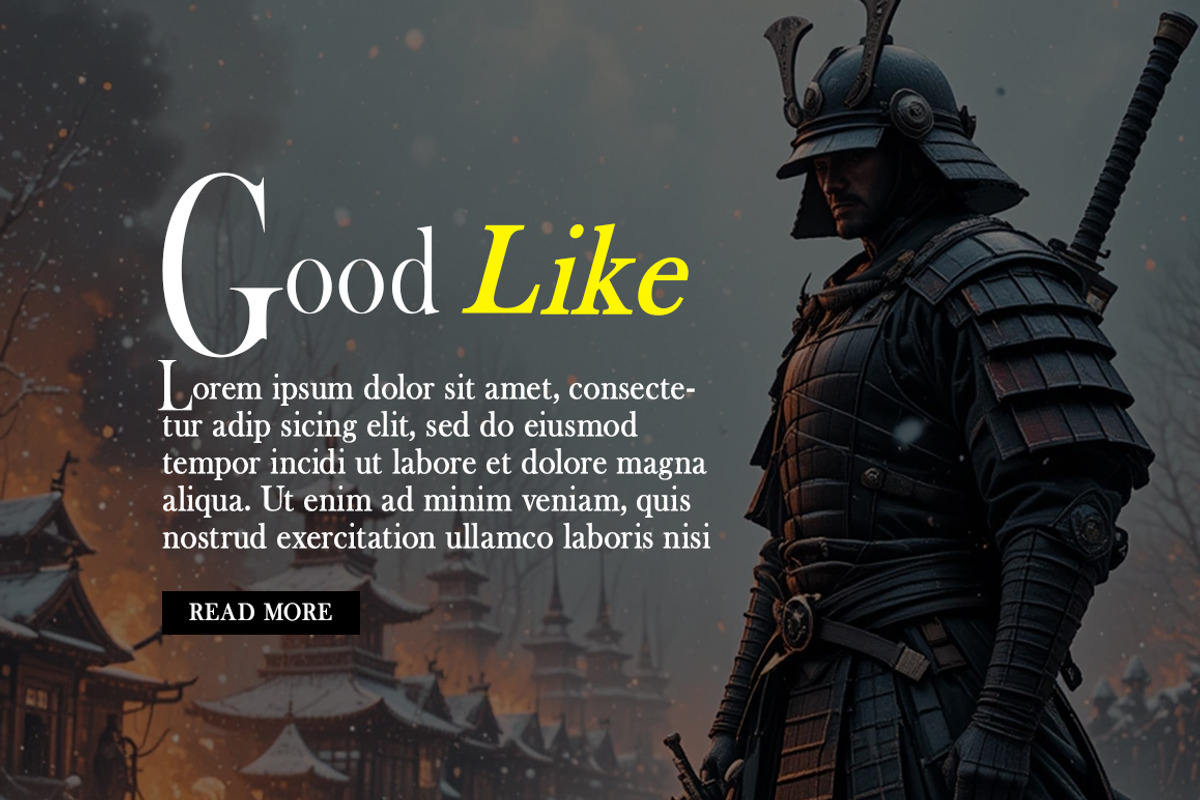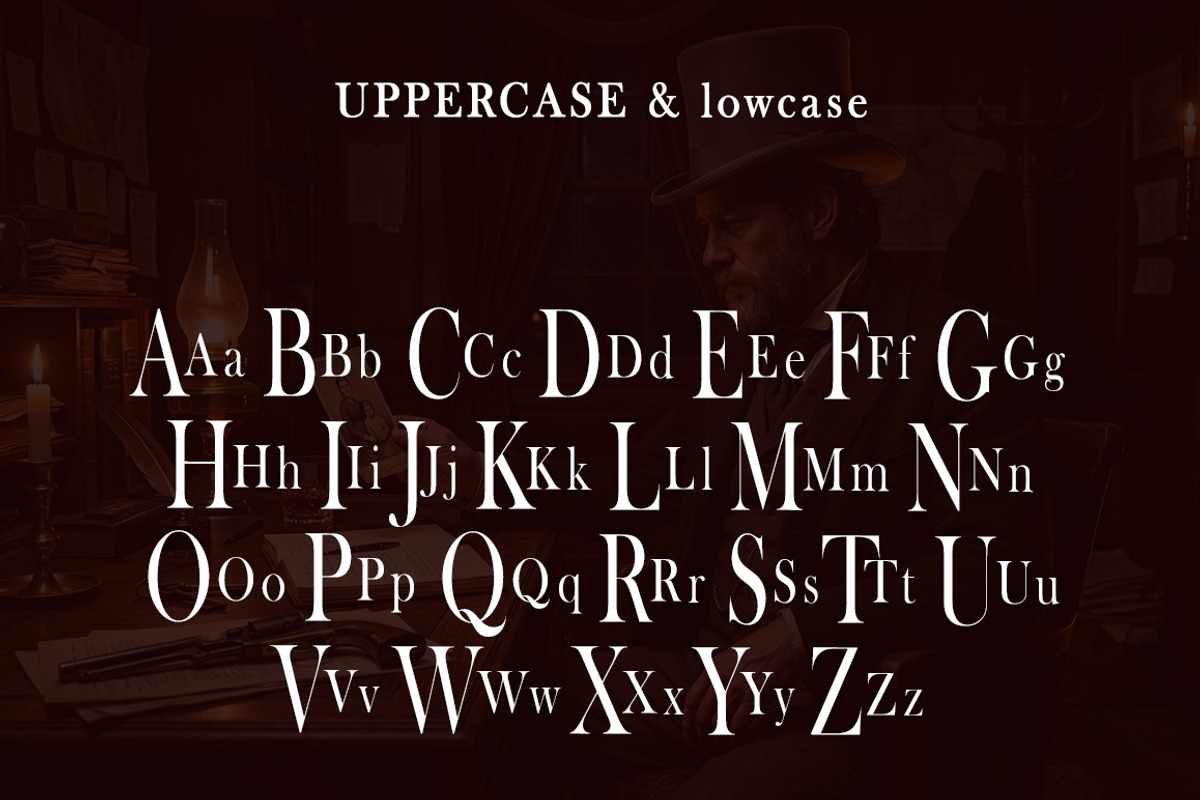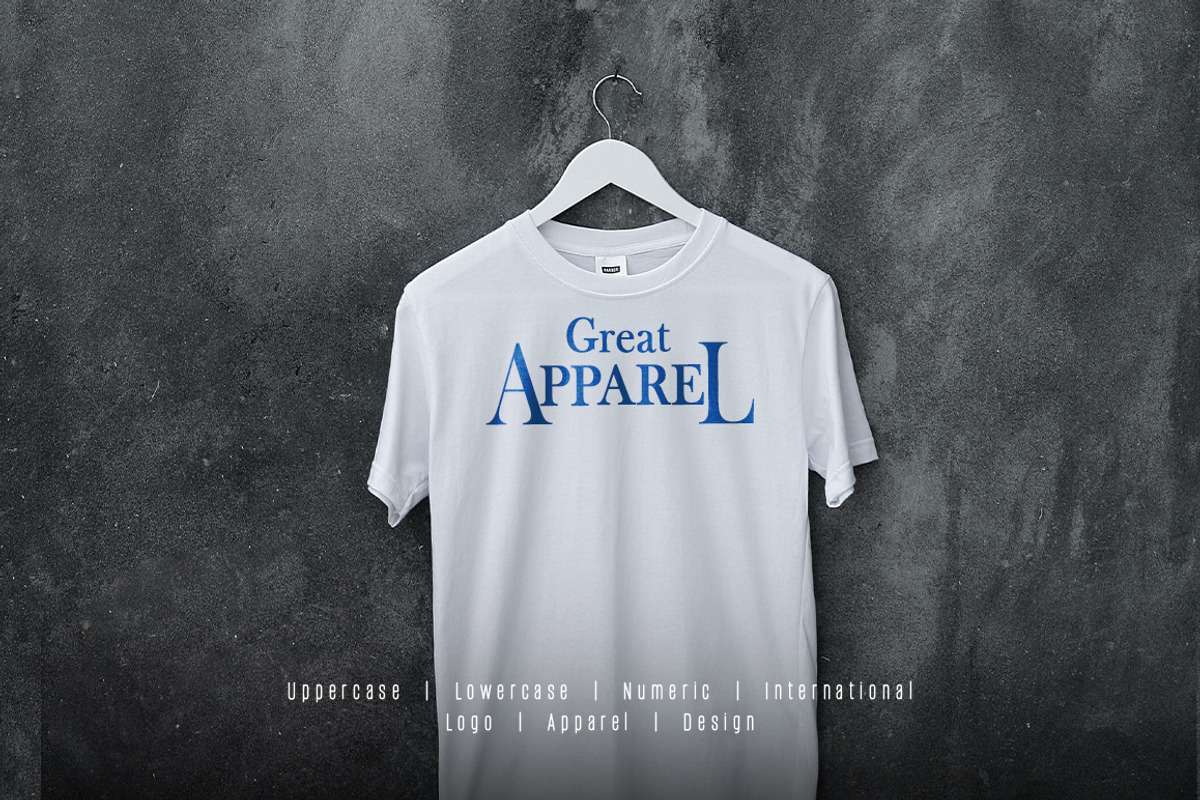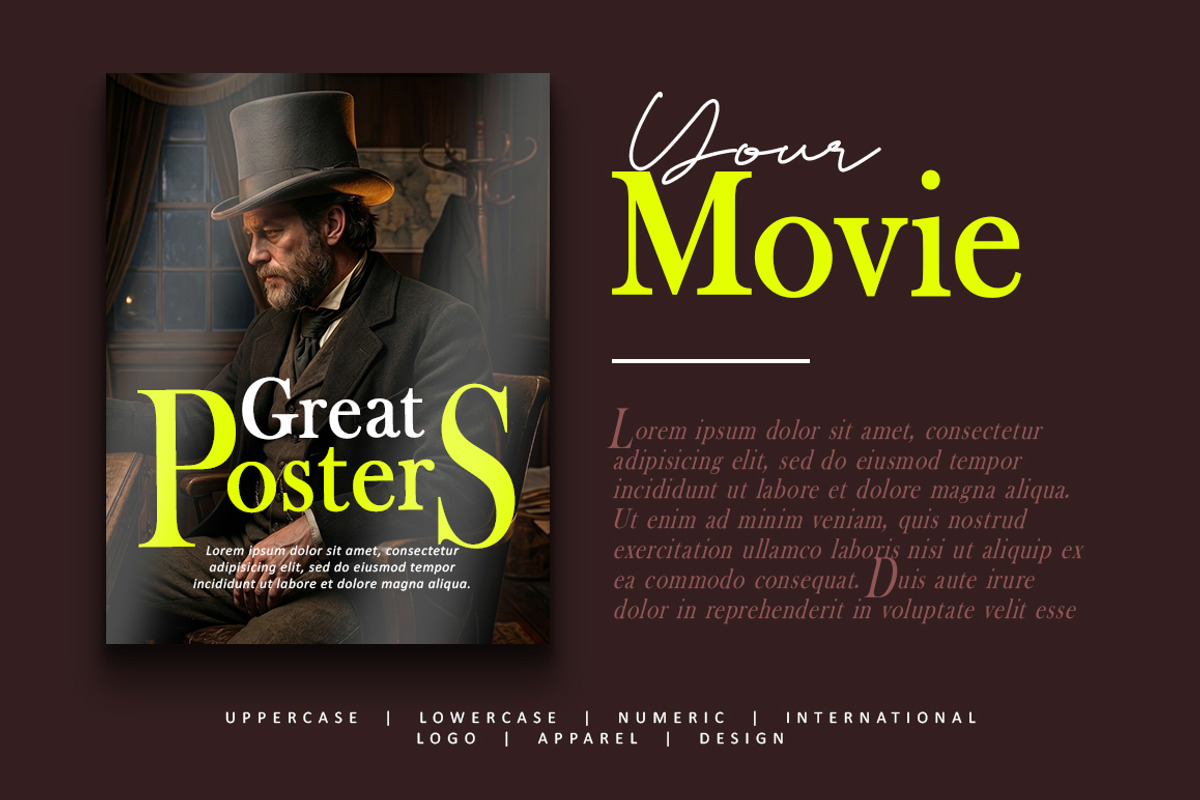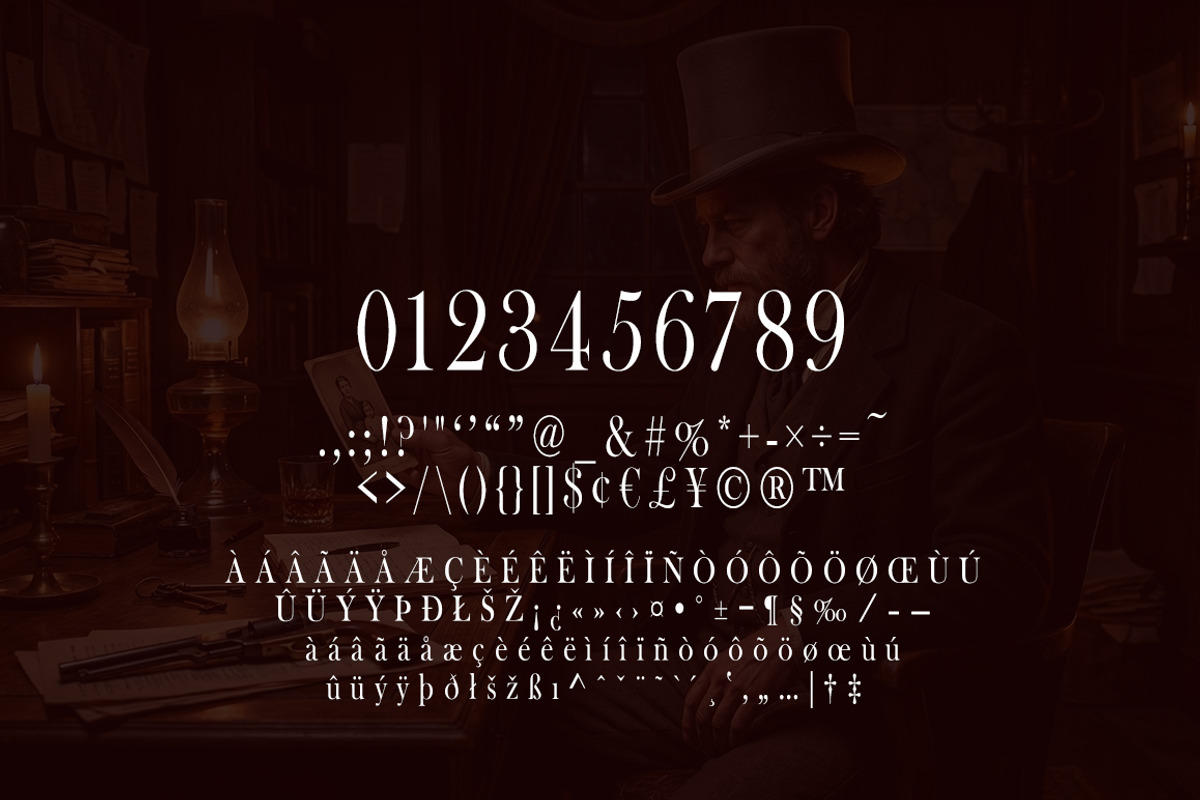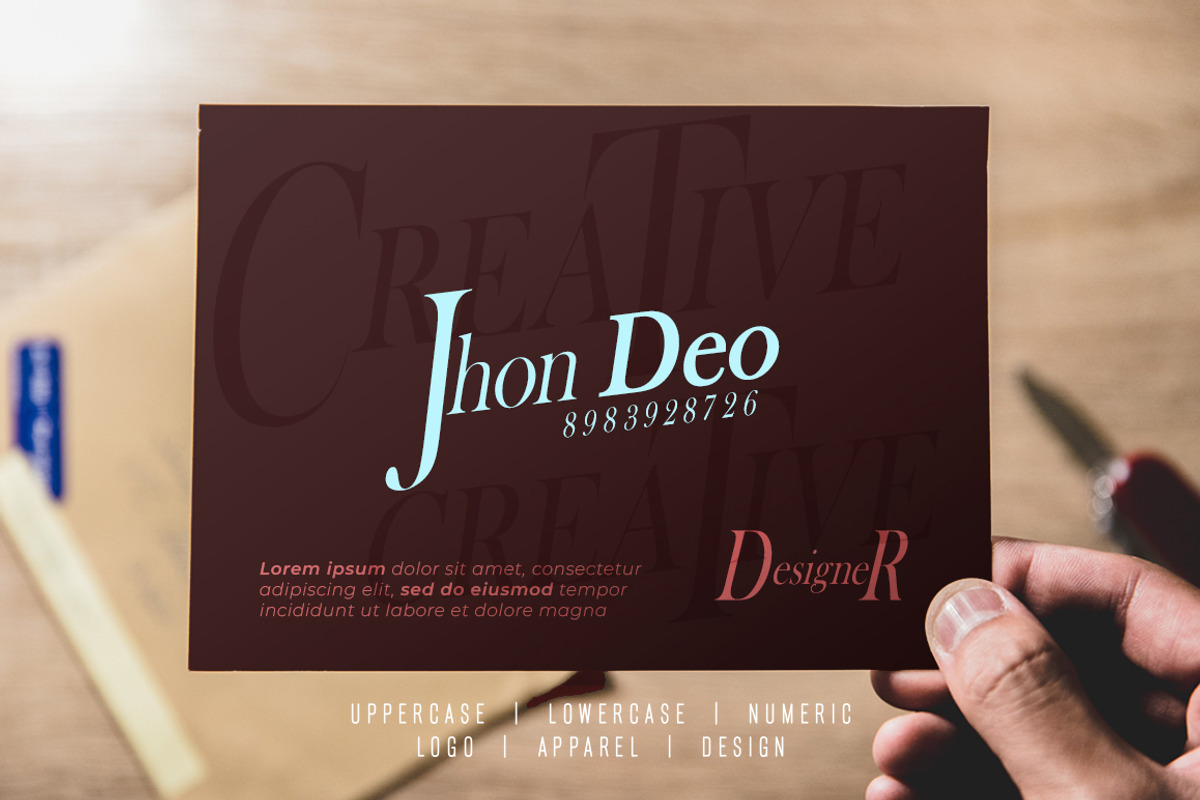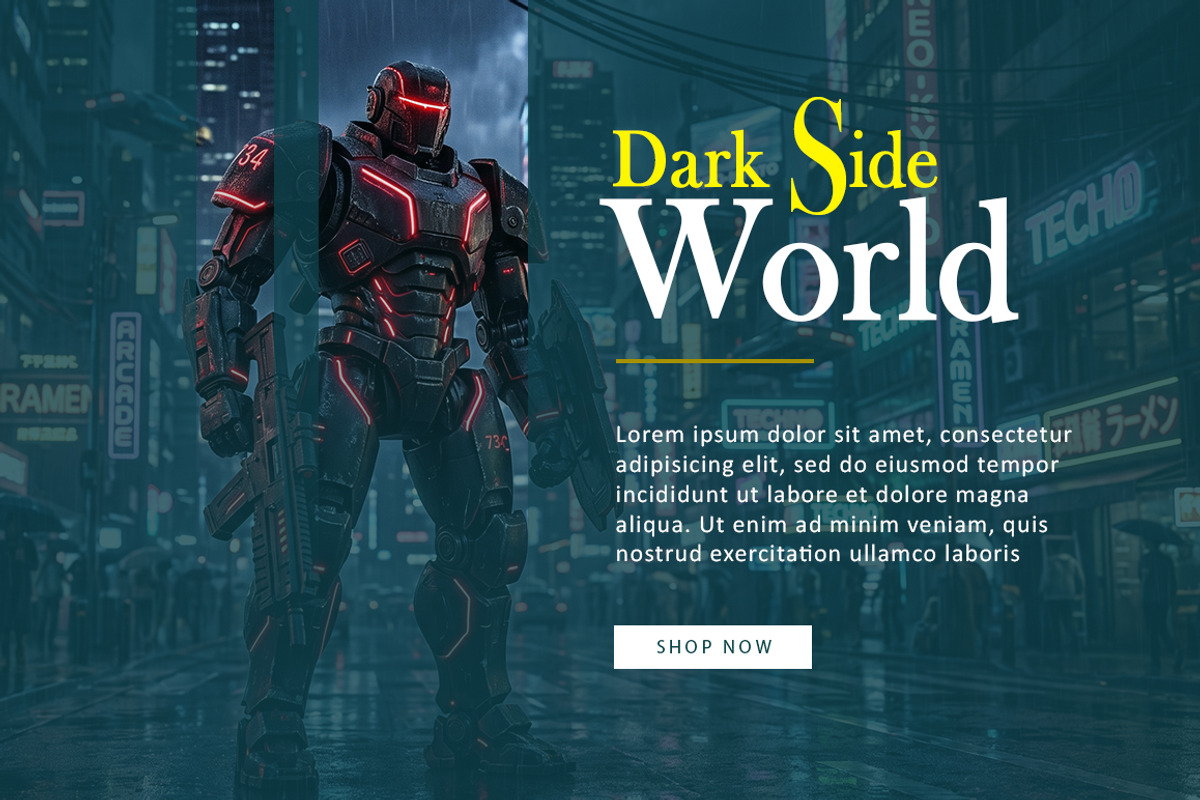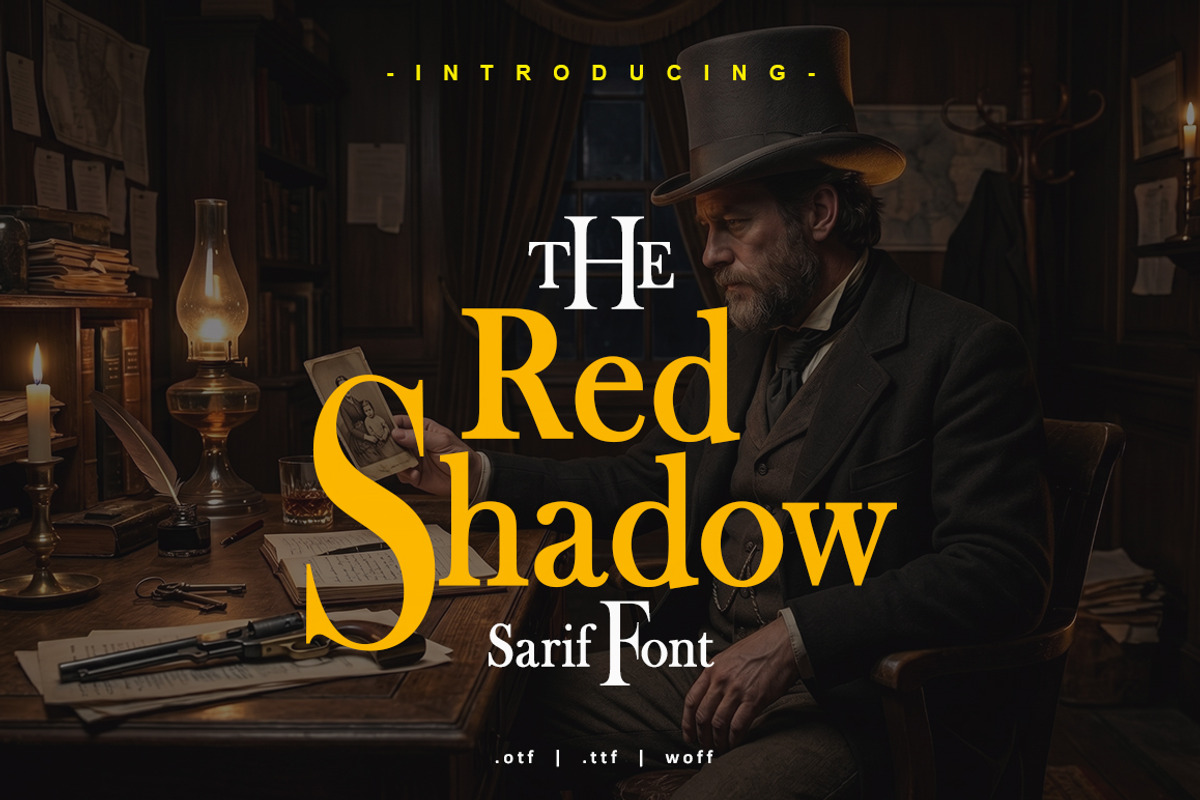
Red Shadow Font
Red Shadow Font very suitable for poster, for logo, music cover, clothing, and many many cool design projects. Red Shadow Font is includes uppercase, lowercase, numerals, and punctuation - perfect for playful headlines. Regular, Italic, Bold, Bold Italic and Alternate Font